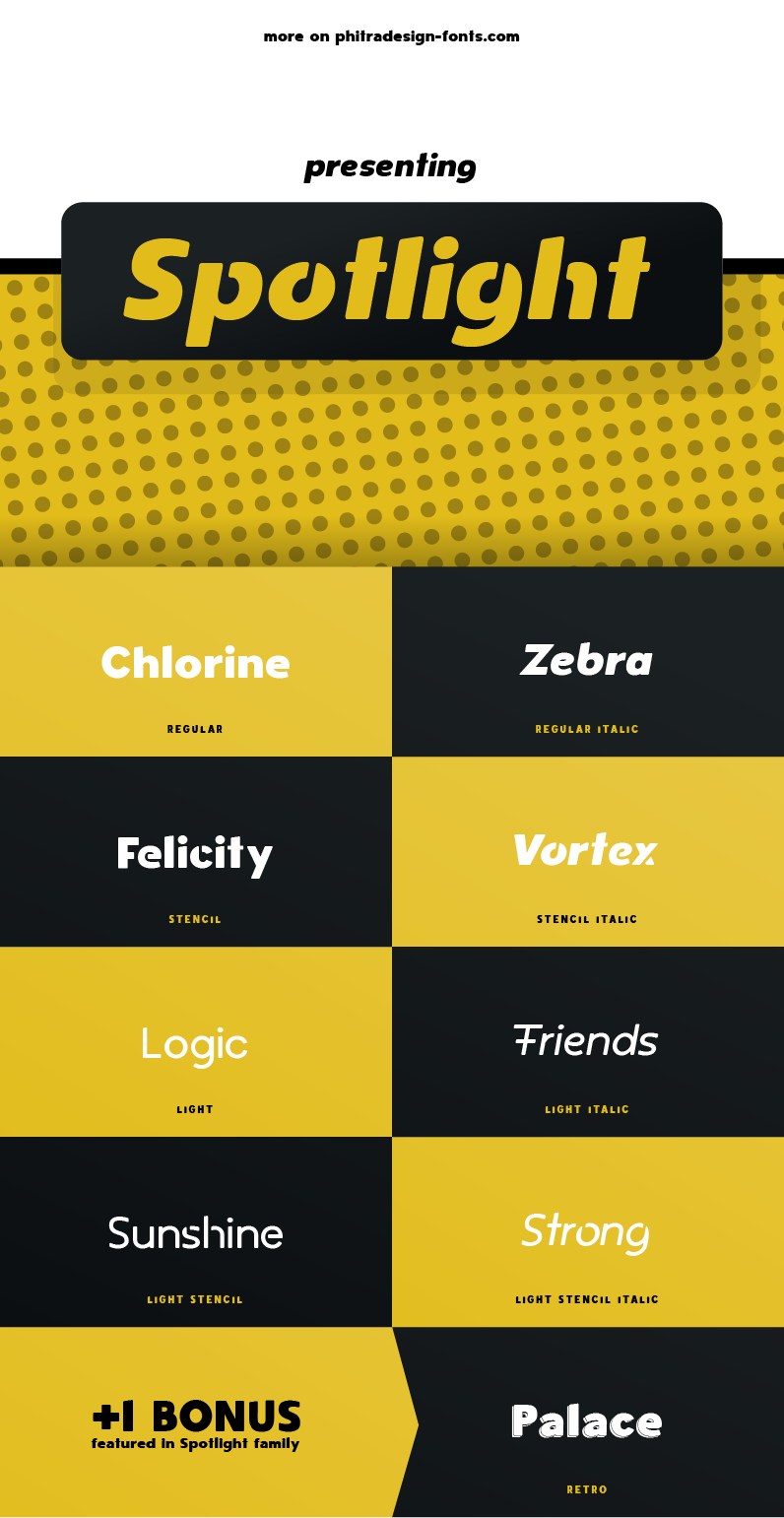
Preview and download Spotlight Stencil Font. Created by Phitradesign in Fancy Stencil, Army styles with Free for personal use license.
** Visit our website to download two free styles! ** Spotlight is a modern sans serif typeface and perfect for headlines, logos or even continuous text. It has beautifully modulated letters and a balanced stroke width and you can choose between a regular look or true italics. Or go crazy with the stencil style, which will give your design a unique look. Try it for free or buy a commercial license which includes all 500 letters and a bonus style! The full version includes language support, symbols and all the ligatures and features for a perfect work. NOTE: This font is free for personal use only. If you want to use it commercially, please buy a license on our website: www.phitradesign-fonts.com/spotlight |